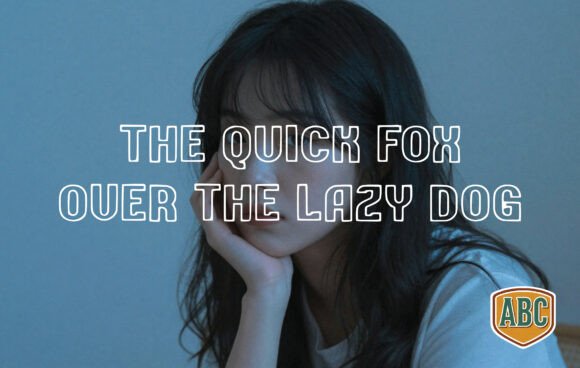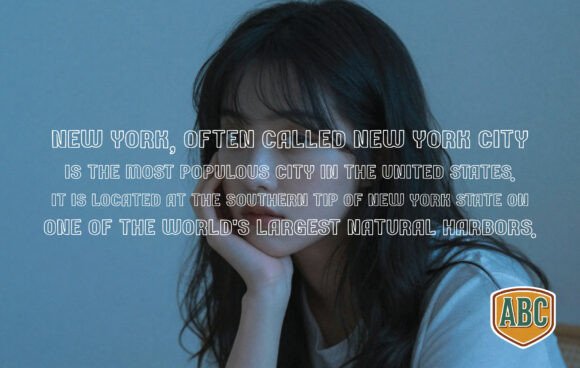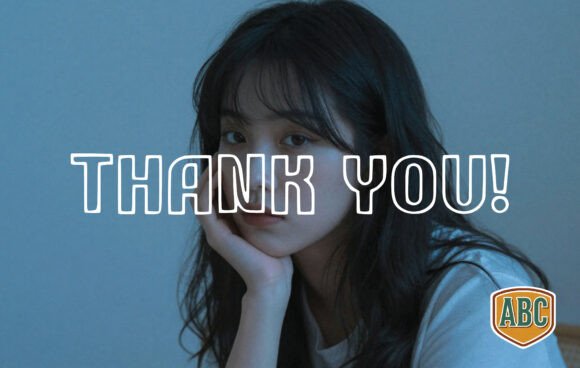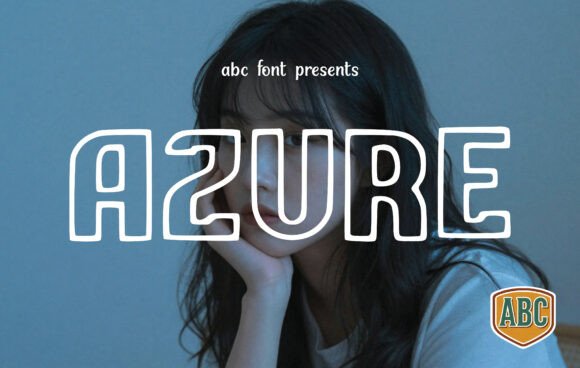
Discover the Modern Playfulness of Azure Font
In the realm of typography, few fonts manage to strike a balance between modernity and playfulness as effectively as the Azure font. This outline display typeface is a breath of fresh air, bringing a soft, approachable energy to any creative project it touches. With its unique design and versatile applications, Azure is quickly becoming a favorite among designers and crafters looking to add a touch of youthful charm to their work.
The Unique Design of Azure Font
What sets Azure apart from other fonts is its distinctive “outlined” or “hollow” design, characterized by thick, rounded borders. This feature not only gives the font its modern appeal but also makes it incredibly versatile. The outlined design allows for layered effects and vibrant color palettes, making Azure a perfect choice for projects that demand attention and a youthful vibe.
Applications of Azure Font
The applications of Azure font are vast and varied. Its friendly, geometric charm makes it an excellent choice for:
• Catchy Social Media Headers: Stand out in a crowded digital landscape with Azure’s bold and playful design.
• Youthful Brand Identities: Infuse your brand with a modern, energetic feel that resonates with younger audiences.
• High-Impact Posters: Use Azure to create visually striking posters that capture attention and leave a lasting impression.
• Streetwear Labels: Add a touch of modern playfulness to your streetwear brand with Azure’s unique aesthetic.
• Digital Stickers: Create fun and engaging digital stickers that appeal to a wide range of audiences.
• Modern Editorial Layouts: Bring a touch of “inflated” fun and visual weight to your editorial projects with Azure’s distinctive design.
Pairing Azure with Other Fonts
For maximum effect, Azure can be paired with a clean, minimal sans-serif font. This contrast allows Azure’s bold personality to take center stage, creating a visually appealing combination that enhances the overall impact of your design. The key is to balance Azure’s playful, outlined design with a font that offers a more straightforward, uncluttered look.
Why Choose Azure Font?
Azure font is an ideal choice for designers and crafters looking for a typeface that combines modernity with playfulness. Its unique outlined design, versatility, and friendly charm make it perfect for a wide range of creative projects. Here are a few reasons why Azure stands out:
• Versatility: Azure’s design allows it to be used in various contexts, from digital media to print.
• Modern Appeal: Its unique outlined design gives Azure a modern edge that’s hard to achieve with traditional fonts.
• Emotional Connection: Azure’s playful and friendly vibe helps create an emotional connection with the audience, making it perfect for brands and projects aiming to appear youthful and approachable.